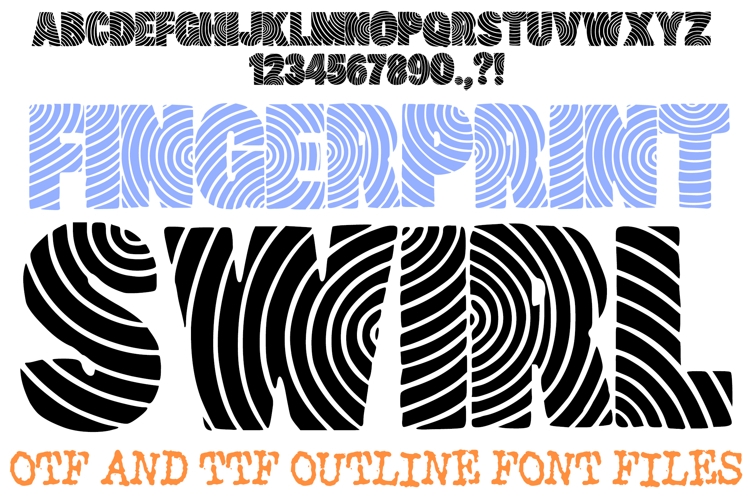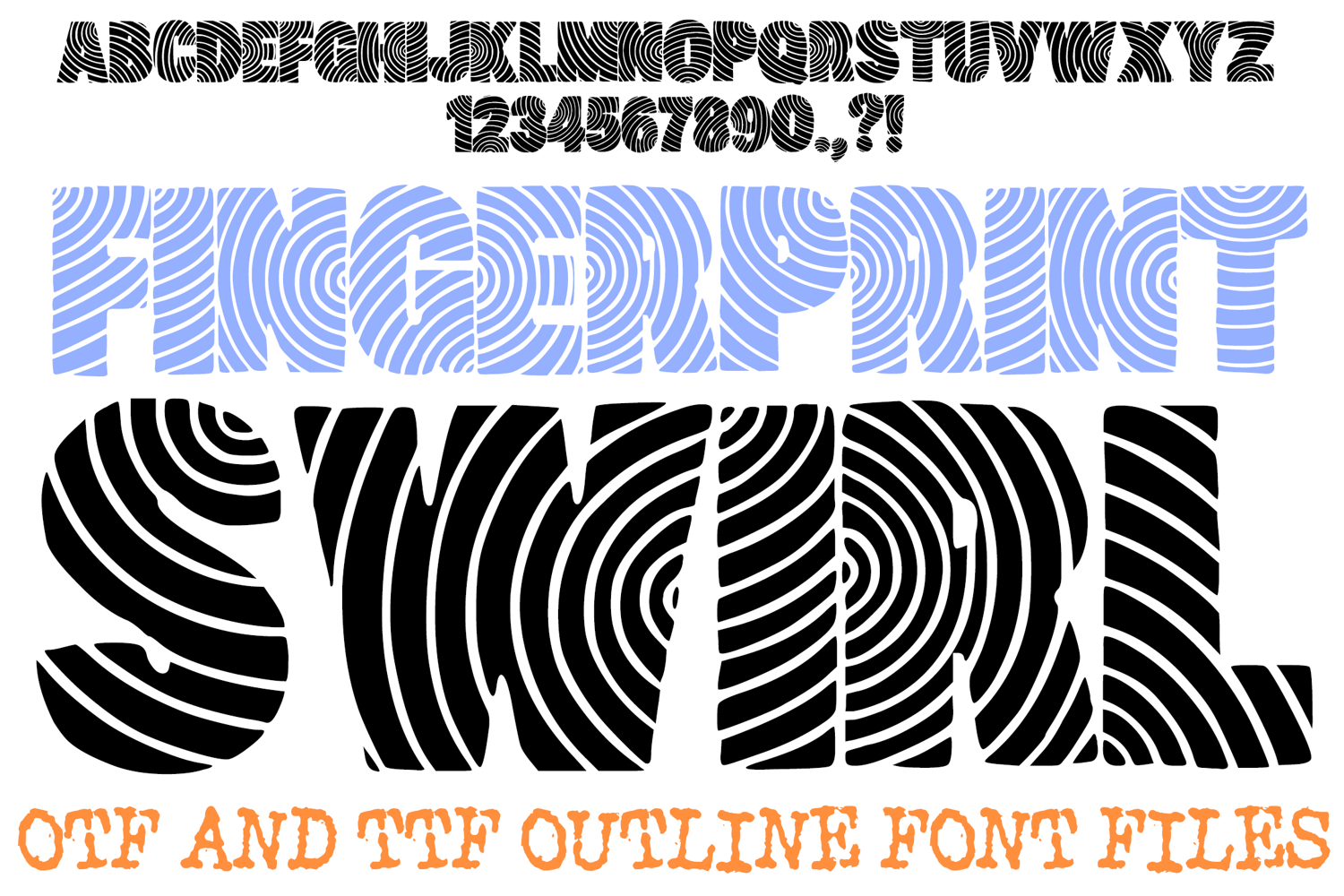
Make a lasting impression with the captivating, rhythmic energy of the Fingerprint Swirl Font! This hand-drawn display alphabet features bold, solid silhouettes filled with a dense pattern of concentric circular lines that mimic the unique ridges of a human fingerprint. It is an exceptional choice for mystery-themed branding, identity-focused logos, forensic-style graphics, and organic, nature-inspired posters.
The intricate "maze" of swirls within each letter creates a hypnotic visual depth, giving your typography a textured, tactile feel that draws the eye. Whether you are designing a book cover for a psychological thriller, creating unique social media headers, or developing a brand centered on individuality, the Fingerprint Swirl Font offers a one-of-a-kind aesthetic that is both modern and organic.
Unique Concentric Texture: Every character is packed with repeating circular lines for a high-contrast, "hypnotic" effect.
Bold Blocky Letterforms: The heavy weight of the characters provides a sturdy foundation that ensures the internal pattern remains clear.
Organic Versatility: The pattern doubles as a "wood grain" or "topographic map" look, making it perfect for outdoor and artisan branding.